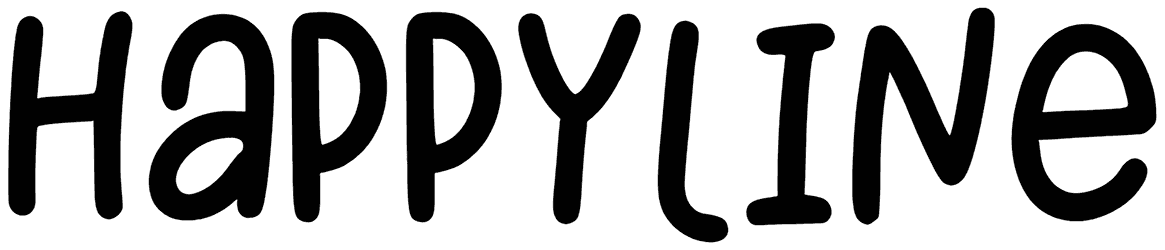
Happyline Font
If you have a project whose target audience is children, then obviously you need a childish font for the context of your project, and what better choice than Happyline. This kid’s font creates that effect in viewers’ eyes with round letters and abnormal shapes. Happyline comes with a combination of both uppercase and lowercase, and also you get numbers and punctuation marks.